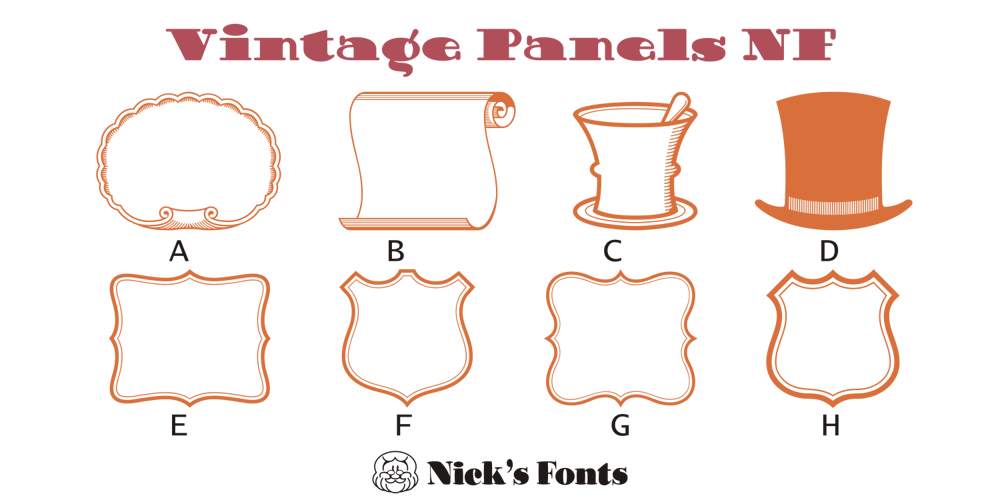
Vintage Panels NF Font Family was designed by Nick Curtis and published by Nick’s Fonts. Vintage Panels NF contains 1 styles and family package options. Here’s a collection of fifty-eight handy-dandy vintage Victorian and Art Deco panels to dress up your next design project. Letters A-Z, a-z and numbers 0, 7, 8 and 9 have single-element designs, and the number series 1-2-3 and 4-5-6 contain Victorian tapestry elements. Enjoy a wealth of design elements at a very attractive price.